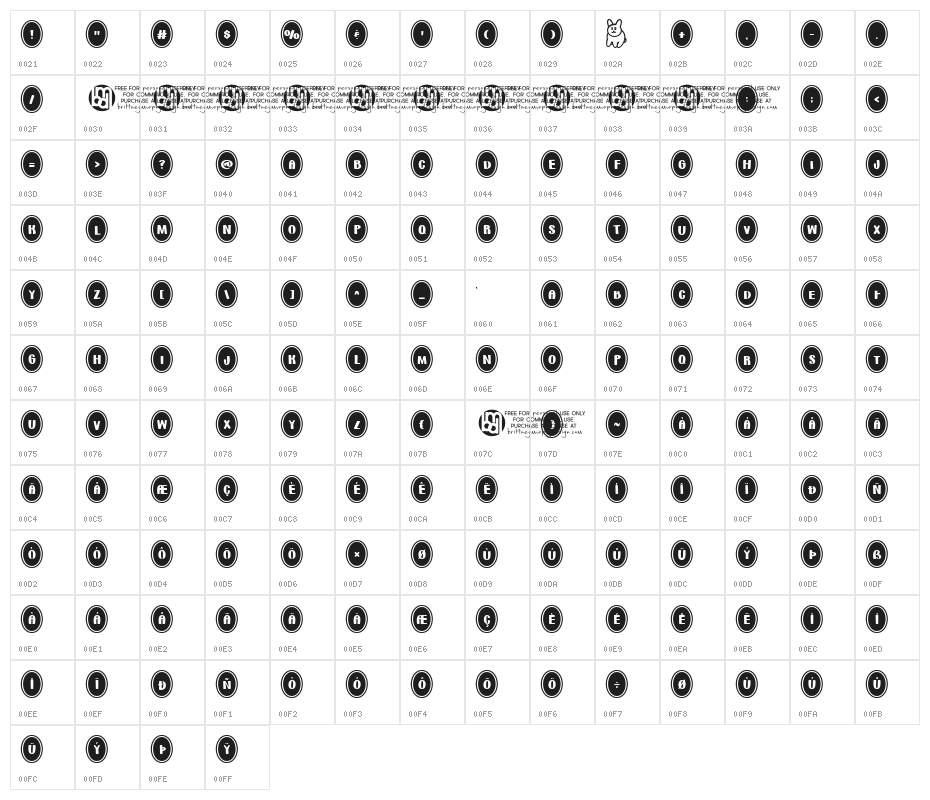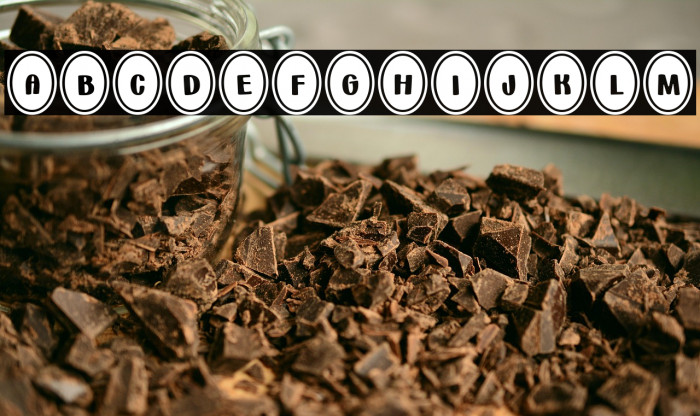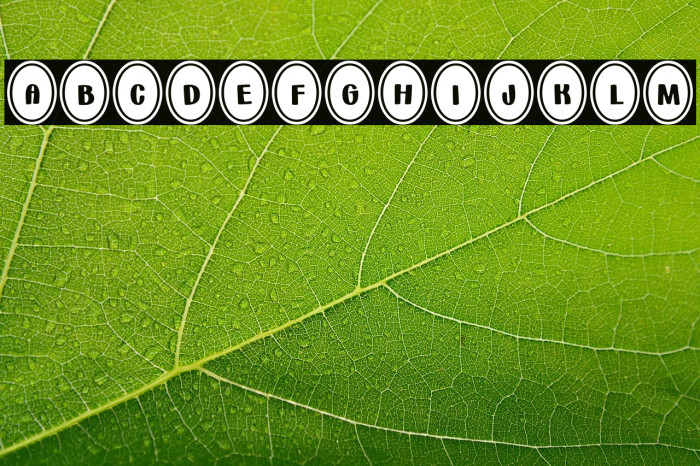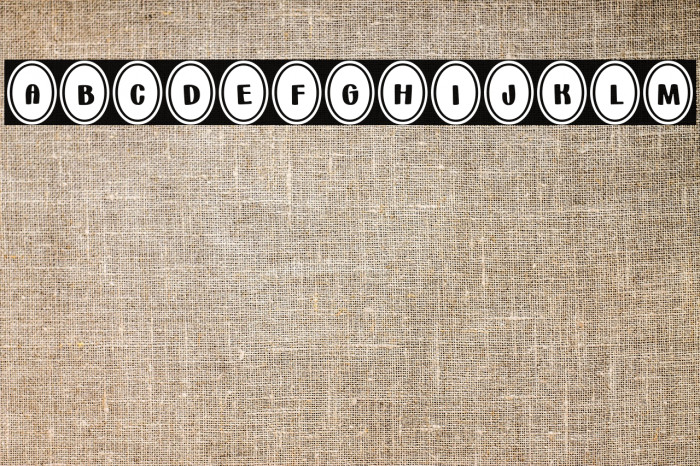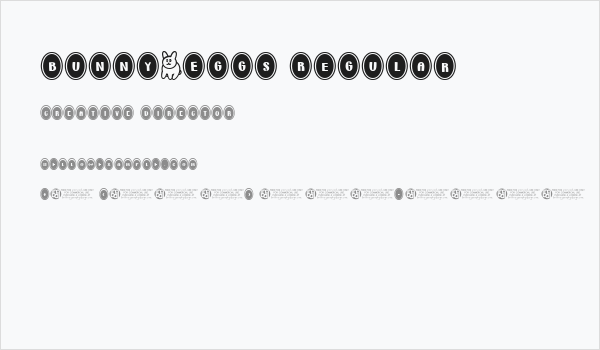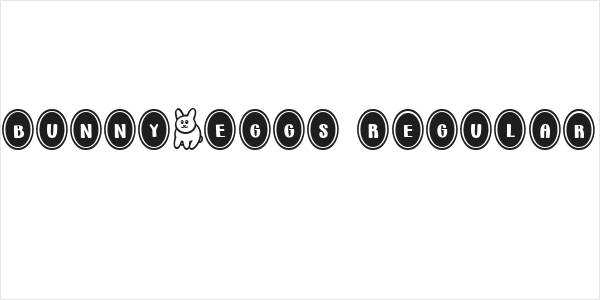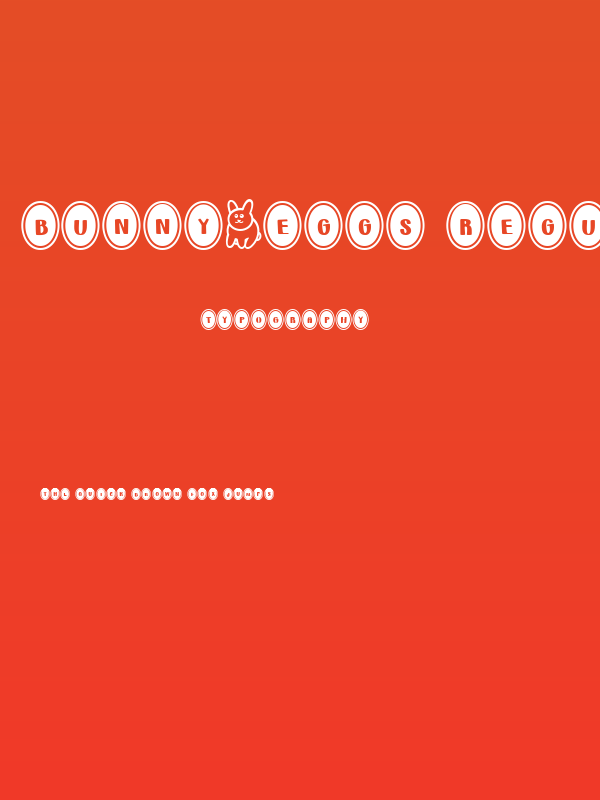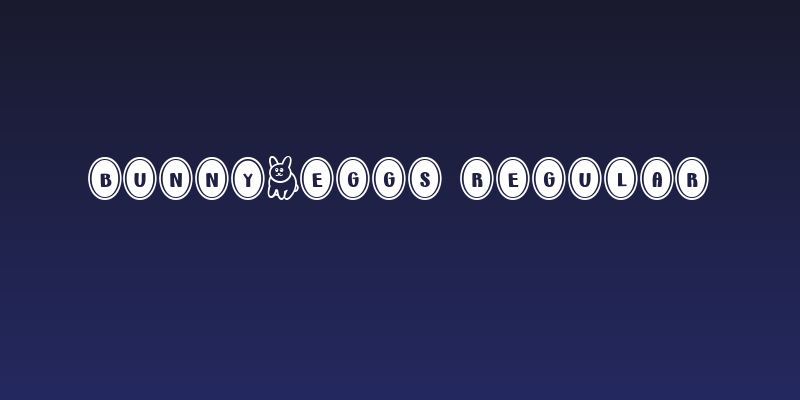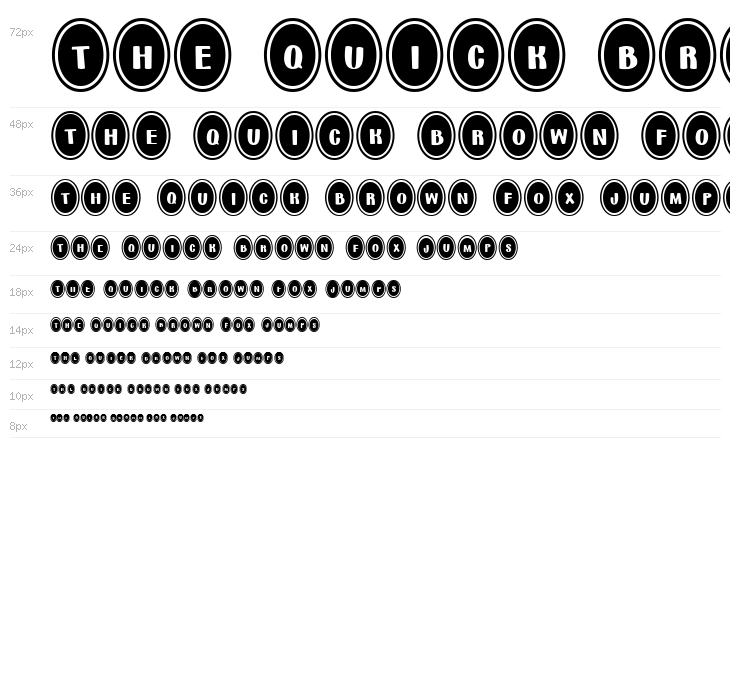
Bunny*Eggs Regular Font
Bunny*Eggs Regular Description
This playful and decorative font features characters enclosed in oval shapes, reminiscent of Easter eggs. Each letter is bold and rounded, providing a whimsical and festive appearance. The font includes both uppercase and lowercase letters, numbers, and a selection of special characters. Its unique design makes it ideal for projects that require a fun and lighthearted touch. The consistent use of oval backgrounds gives the font a cohesive and distinctive look, perfect for holiday-themed designs or children's materials.
| Use Case | Headlines, Logos, Greeting Cards |
| Proposed Projects | Perfect for Easter-themed projects, children's books, greeting cards, and playful branding. |